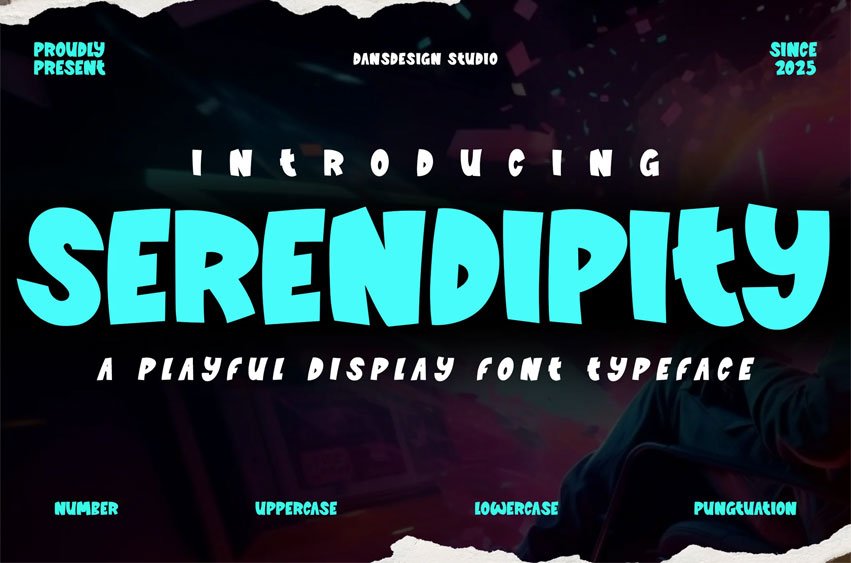
Serendipity Playful Font is a cheerful, hand-drawn display font full of playful charm. With bold curves and a bouncy look, it’s perfect for kids’ projects, fun visuals, and creative content.
Kids posters, books, and learning materials, YouTube thumbnails and animations, Game UI, stickers, and playful branding, Cartoon titles, scrapbooks, and birthday invites
Bold cartoon style with a fun, handmade feel. Ideal for kids, games, and educational content. Multilingual support (with accented characters), PUA encoded for easy access. Formats: OTF, TTF, WOFF, WOFF2
Serendipity brings a touch of joy to every word—perfect for designs that need energy and personality.